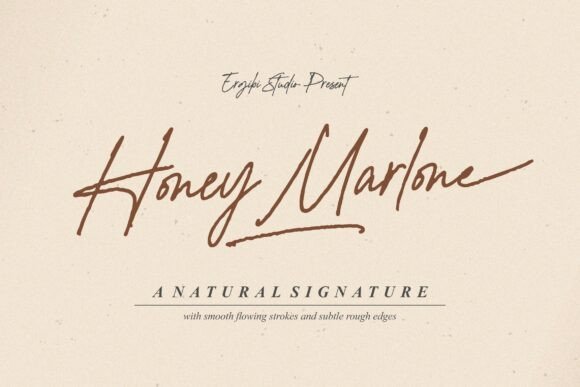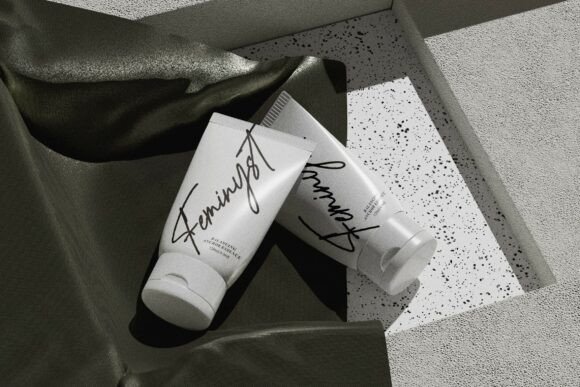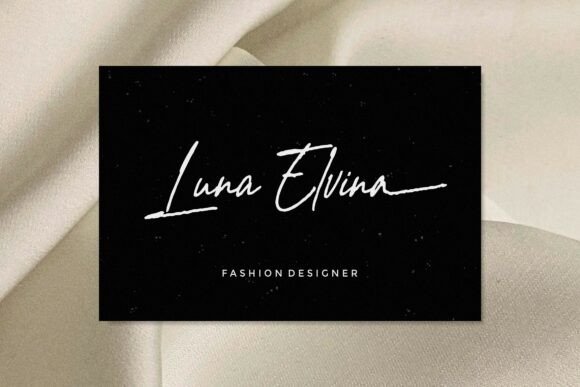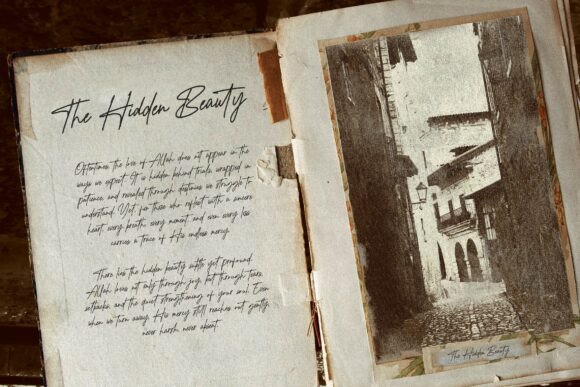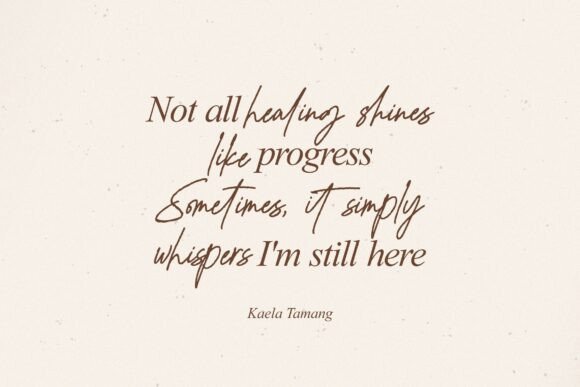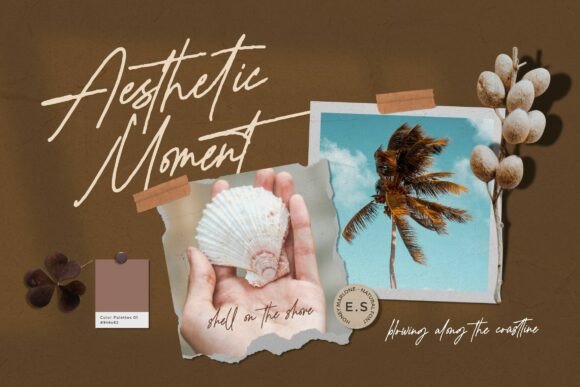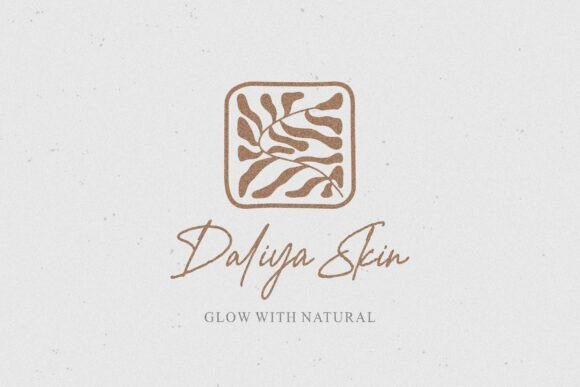
The Perfect Pen Stroke: Introducing Honey Marlone Font
Have you ever found yourself scribbling down a creative idea in a worn-out notebook, the ink bleeding onto the page as you pour your heart and soul into your work? For many of us, that’s where some of our most memorable ideas are born. And what if you could capture that same feeling in your design work? Enter Honey Marlone Font, a natural handwritten font that embodies the warmth and personality of a handwritten note.
With its smooth flowing strokes and subtle rough edges, Honey Marlone Font is perfect for designers looking to add a touch of authenticity to their projects. Whether you’re creating a relaxed theme, personal branding, invitations, or product packaging, this font is sure to bring a friendly and approachable feel to your work. As a PUA-encoded font, accessing all glyphs, swashes, and alternate characters is effortless, giving you the creative freedom to experiment and express yourself.
Honey Marlone Font Key Features
- Unique Characteristics: Honey Marlone Font is a handwritten, script font with a mix of modern and vintage elements, featuring connected letters and subtle flair.
- Font Style: Script, Handwritten
- Language Support: Multilingual support, including Latin-based languages and some Cyrillic languages
Honey Marlone Font Review
Initially, I was drawn to the unique and playful vibe of the Honey Marlone Font. It’s got a certain charm to it that’s hard to ignore. ✨ The font’s organic feel, with its rounded edges and soft lines, makes it perfect for creating a whimsical and approachable atmosphere. It’s great for branding and packaging designs, especially those targeting a younger demographic.
Another strength of the font is its versatility. It can be used in a variety of contexts, from headings to body text, and still looks cohesive. ✨ The font’s ability to scale well is also a plus, making it suitable for use in different sizes and resolutions.
However, there are a few limitations to consider. ⚠️ The font may not be the best choice for formal or professional designs, as its playful nature may not convey the desired level of sophistication. Additionally, the font’s uniqueness can sometimes be a double-edged sword, as it may not be easily legible for all users.
Overall, I think the Honey Marlone Font is a great addition to any designer’s toolkit. While it may not be the best choice for every project, its unique charm and versatility make it a great option for designs that need a bit of personality.
- Unique, organic feel
- Perfect for branding and packaging designs
- Versatile and suitable for different contexts
- Scalable and suitable for different sizes and resolutions
Honey Marlone Font Practical Application Guide
Tips for Getting the Most Out of Honey Marlone Font
For best results, use Honey Marlone Font in combination with bold, bright colors and playful graphics.
Experiment with different font sizes and styles to create visual interest and emphasis.
Consider using Honey Marlone Font for titles, headings, and other attention-grabbing elements.
Honey Marlone Font is ideal for:
Food and beverage branding
Children’s product packaging
Playful advertisements and marketing materials